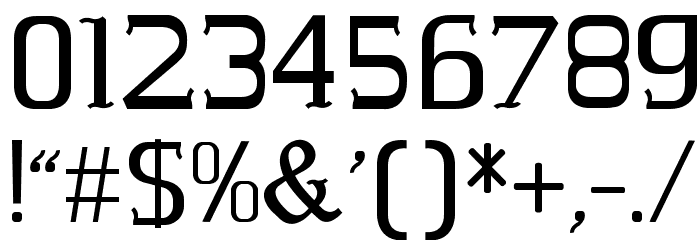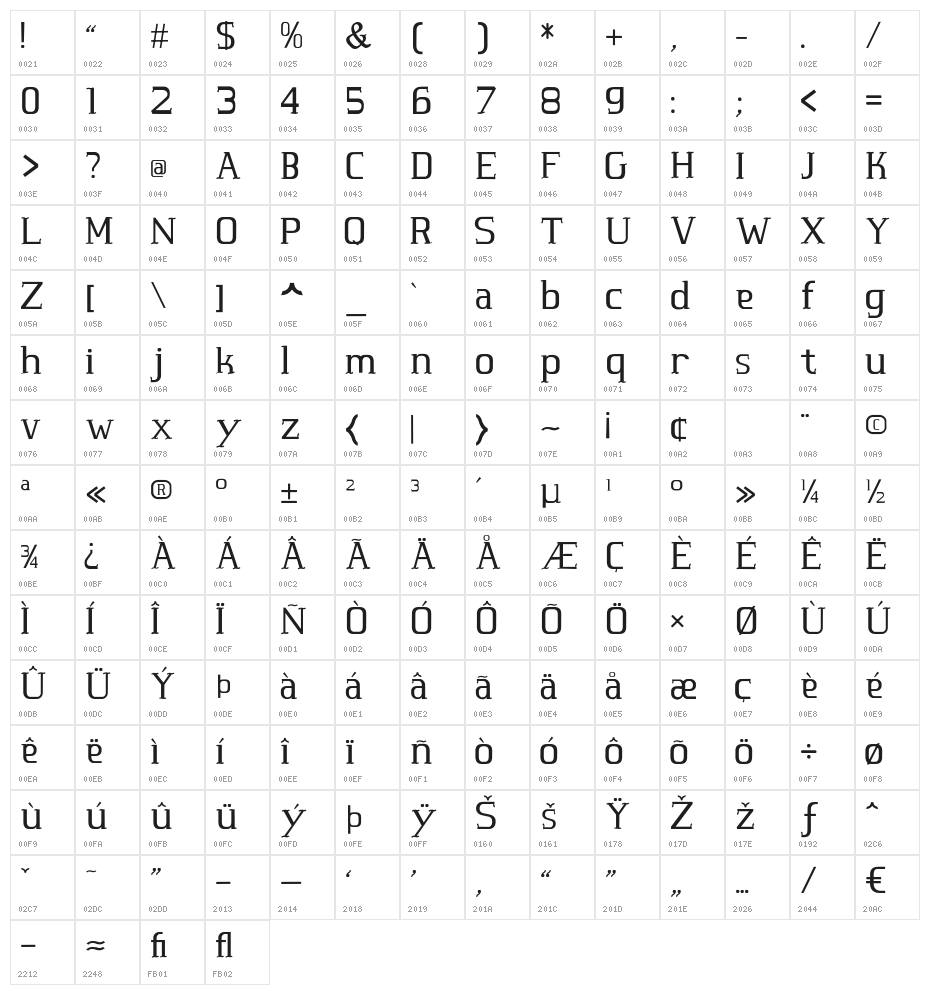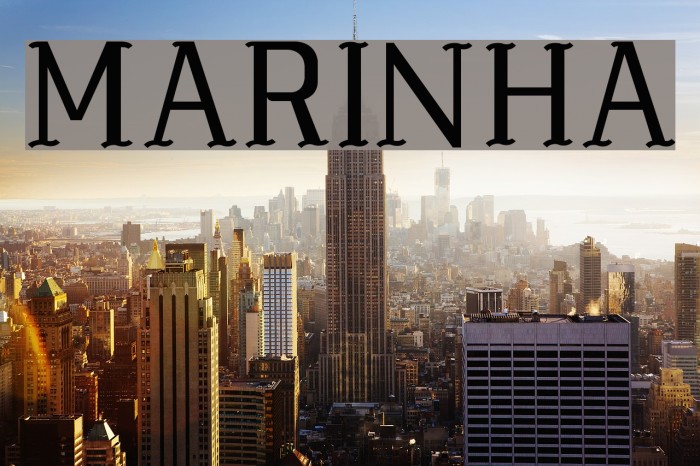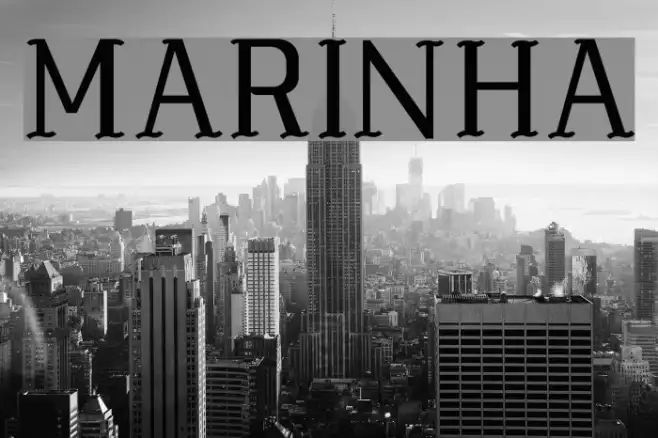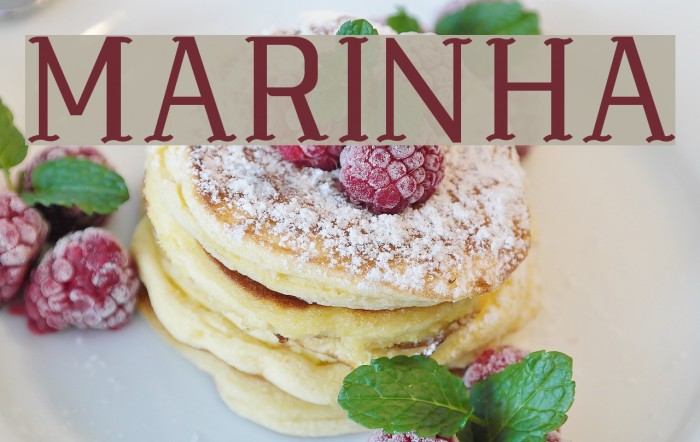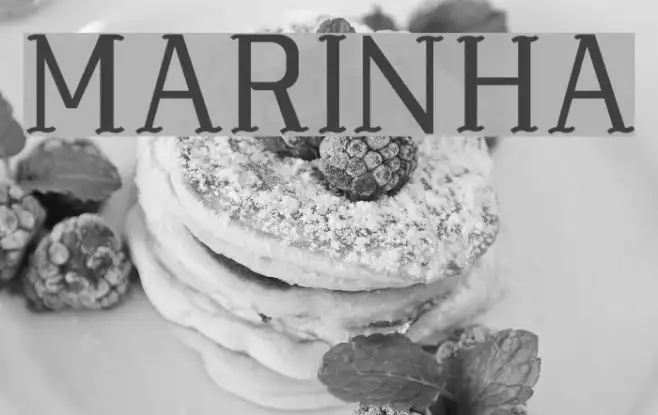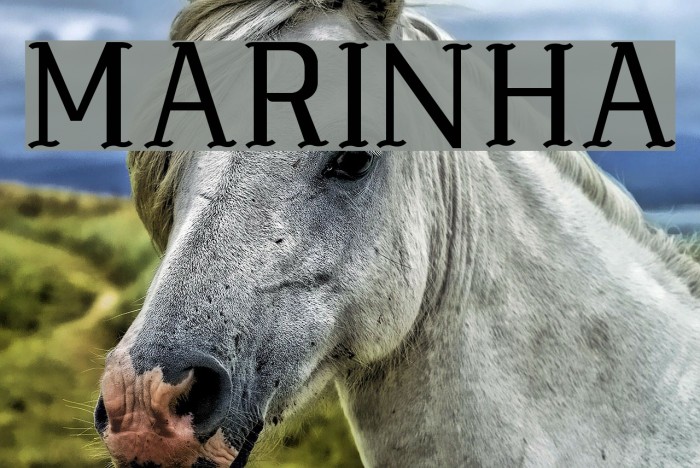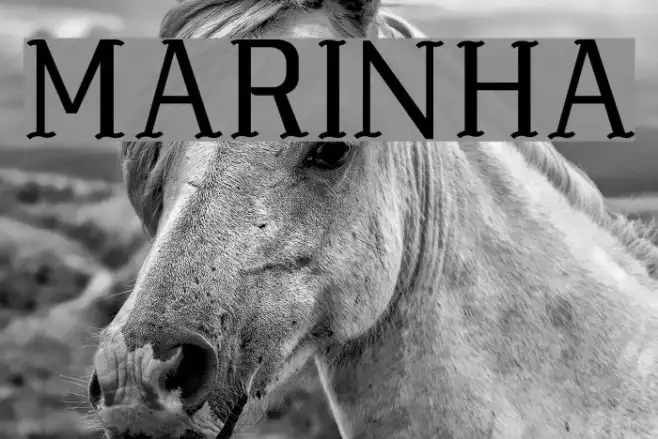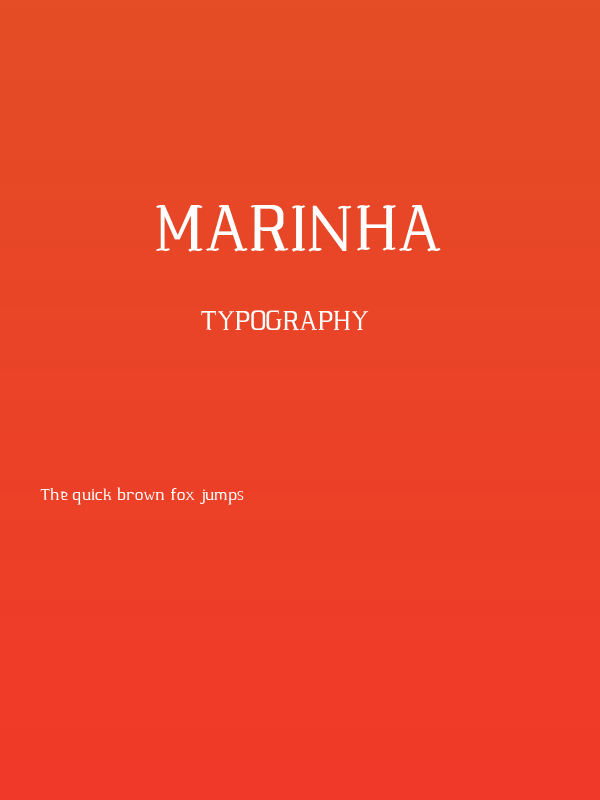
MARINHA Font
MARINHA Description
This font features a distinctive and modern design with a touch of elegance. The uppercase letters are tall and slightly condensed, with unique serifs that add character and flair. The lowercase letters maintain a consistent style, offering a harmonious blend with the uppercase. Numbers are bold and clear, ensuring readability. The special characters are designed with the same attention to detail, making them stand out while remaining cohesive with the overall style. This font is versatile, suitable for various design projects that require a modern yet sophisticated look.
| Proposed Projects | Ideal for branding, editorial design, posters, and invitations. |